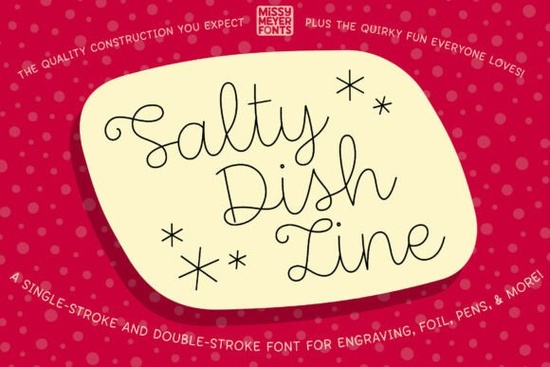
If you own a drawing machine, foil quill, or scoring tool, you’ve probably struggled to find fonts that actually work for single-line projects. Most typefaces are designed for printing, not for tools that follow a single path. That’s where Salty Dish Line Font comes in. It’s a lively single-line adaptation of the original Salty Dish outline typeface, and it’s built specifically for stylus-based machines like Glowforge, Cricut, and Brother ScanNCut. Instead of filled outlines, it gives you a clean, hand-drawn stroke that mimics real pen-and-ink lettering.
What exactly is Salty Dish Line Font?
Salty Dish Line is a casual handwritten script font that keeps the charming, uneven feel of hand lettering. The original Salty Dish was a solid outline font; this version strips that down to a single continuous line. That makes it ideal for any tool that draws or scores one path at a time. You get both single‑stroke and double‑stroke versions in the download, so you can pick the one that works best with your software. Whether you’re making greeting cards, personalized gifts, engraved jewelry, or cutting boards, this font adds an authentic hand‑drawn touch.
Which machines and tools work best with this font?
Because this is a single‑line font, it’s not meant for traditional printing or word processing. Instead, use it with:
- Sketch pens (Cricut, Silhouette, etc.)
- Foil quills
- Engraving tools
- Infusible ink pens
- Glowforge scoring
- Any stylus or drag‑knife that follows a single path
If you work with a Glowforge for scoring, the double‑stroke version often gives cleaner results. For Cricut’s drawing function, the single‑stroke version usually works better. Always test on scrap material first.
How does it handle compatibility with Cricut and Brother?
There are a couple of quirks to know:
What kind of projects does it suit best?
Because the line is thin and uneven, Salty Dish Line excels at:
- Greeting cards with hand‑lettered messages
- Personalized jewelry (engraved rings, bracelets)
- Acrylic or wooden signs scored with a laser
- Foil‑transfer designs on paper or cardstock
- Infusible ink projects like coasters or mugs
It also works for names on gift tags, place cards, and wedding stationery. The hand‑drawn look makes each piece feel one‑of‑a‑kind.
How does it compare to other handwritten script fonts?
If you’ve tried other single‑line scripts, you’ll notice Salty Dish Line has a more relaxed, playful rhythm. It’s not as polished as a formal calligraphy font, which is exactly why many crafters love it. For a bolder, more upright script, consider Scribblemood Regular. Or if you need something with bounce and movement, Happy Birthday Duo Font gives a similar casual vibe. And for everyday journaling or quotes, Dancing Font offers a light, airy alternative.
Tips for getting started with single‑line fonts
- Check your machine’s pen or scoring tool. It needs to follow a continuous path without lifting.
- Download both versions – single and double stroke – and test each one in your design software.
- If you use Brother CanvasWorkspace, plan to use the SVG file rather than typing directly.
- In Cricut Design Space, try flattening or welding the text if you get an error at the “Make It” screen.